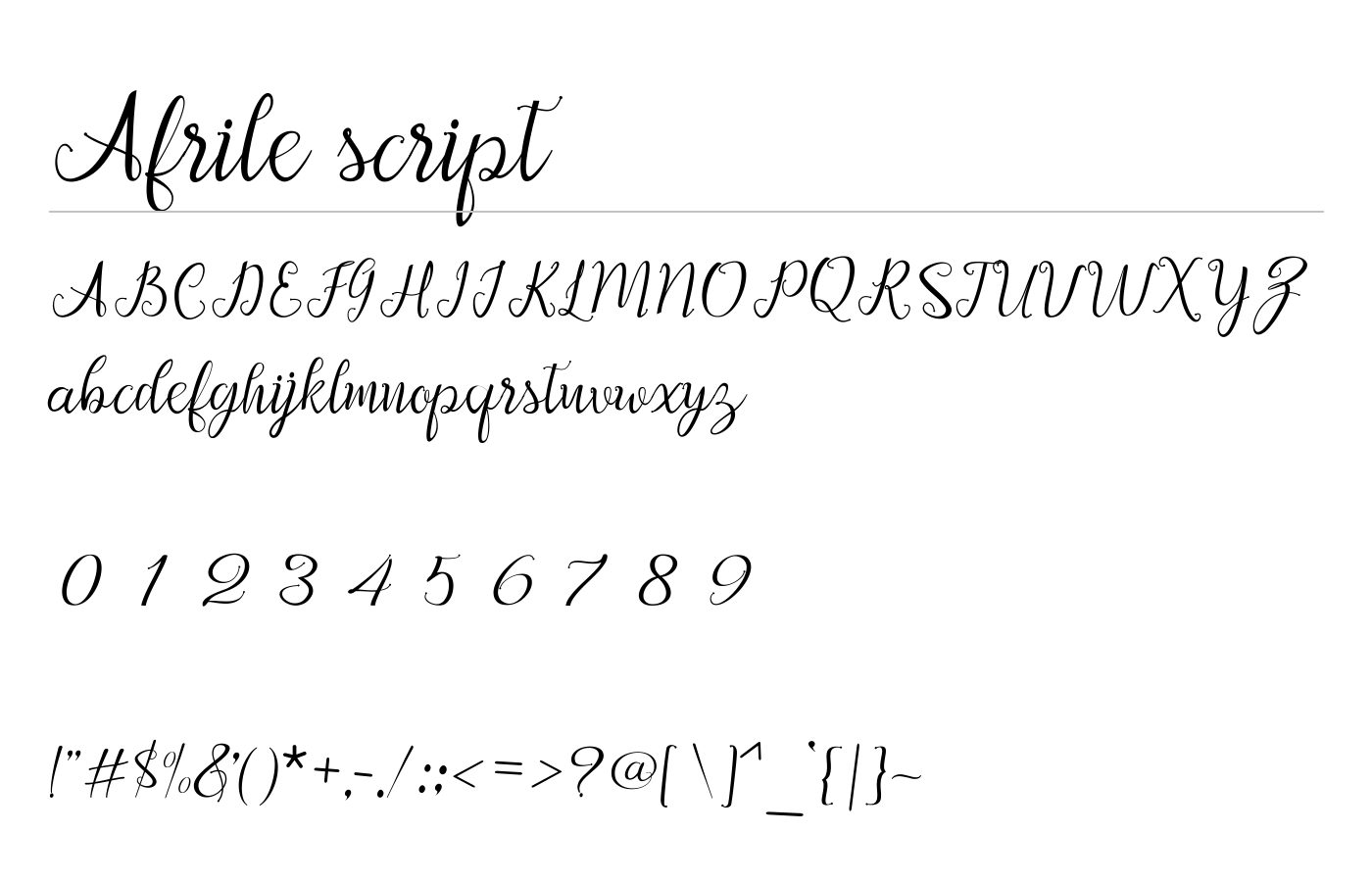
Afrile Script is an elegant, light-weight script font featuring delicate, flowing letterforms with a classic handwritten feel. Its smooth curves and refined strokes make it perfect for stylish invitations, branding, and editorial use, where a touch of sophistication and personality is desired. This font works well in creative and feminine designs that need a graceful yet approachable look.
Afrile script Font
About Afrile script Font
| Font family | Afrile script Font |
| Designer | Fajriadi pholetter |